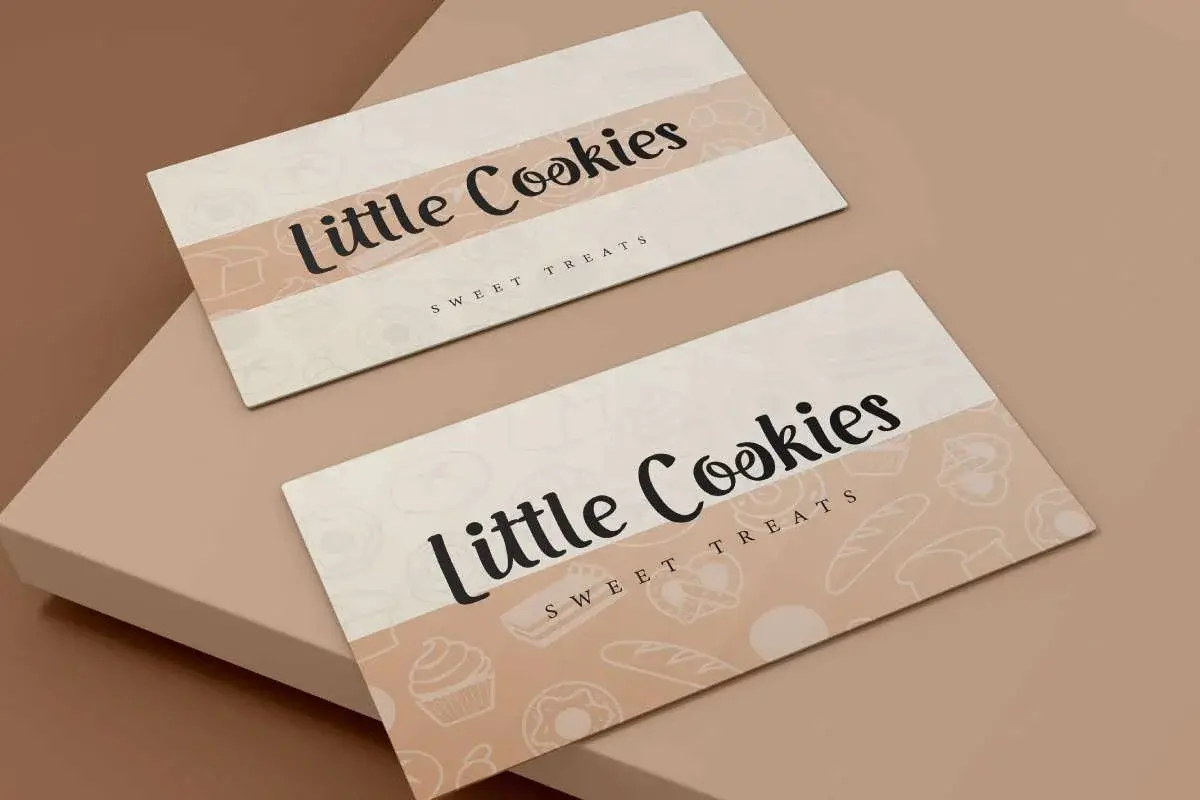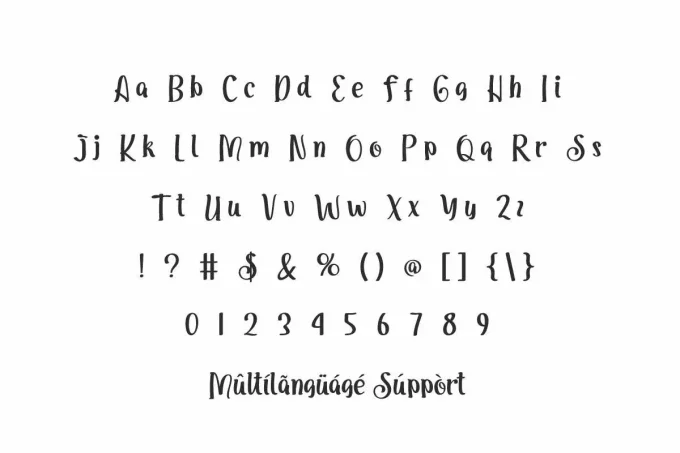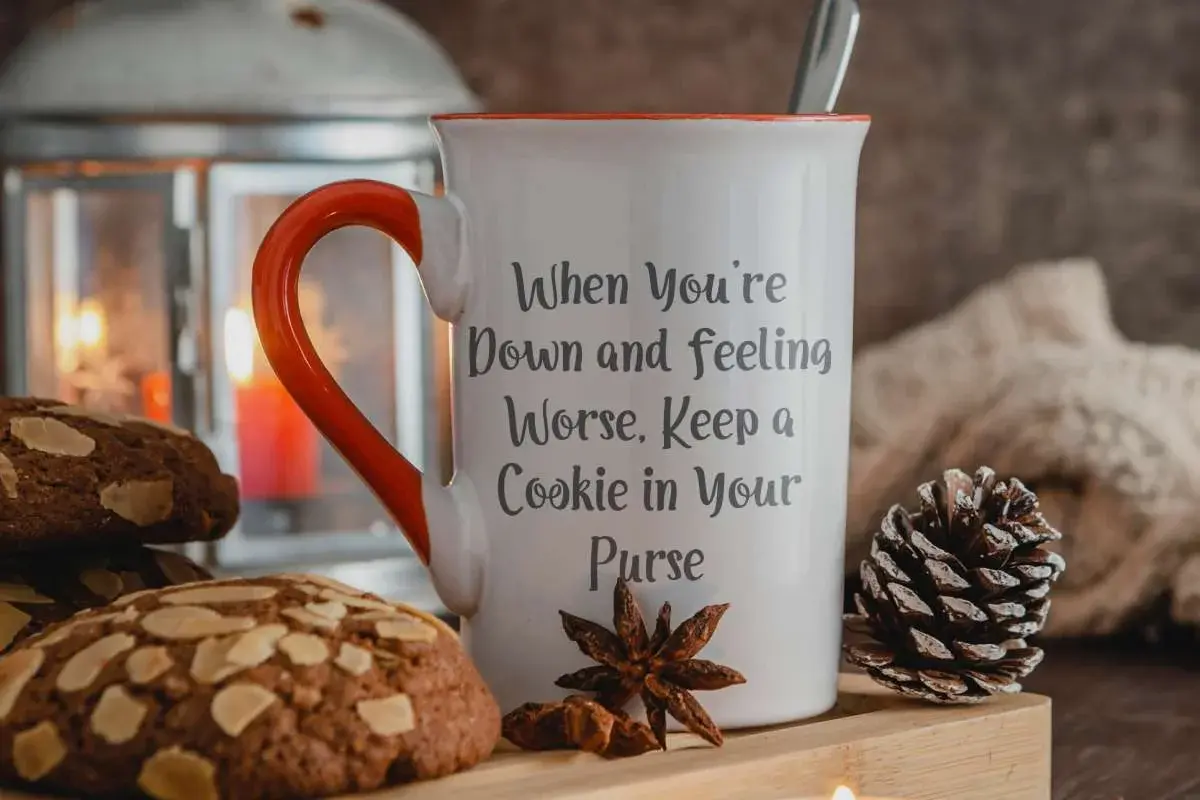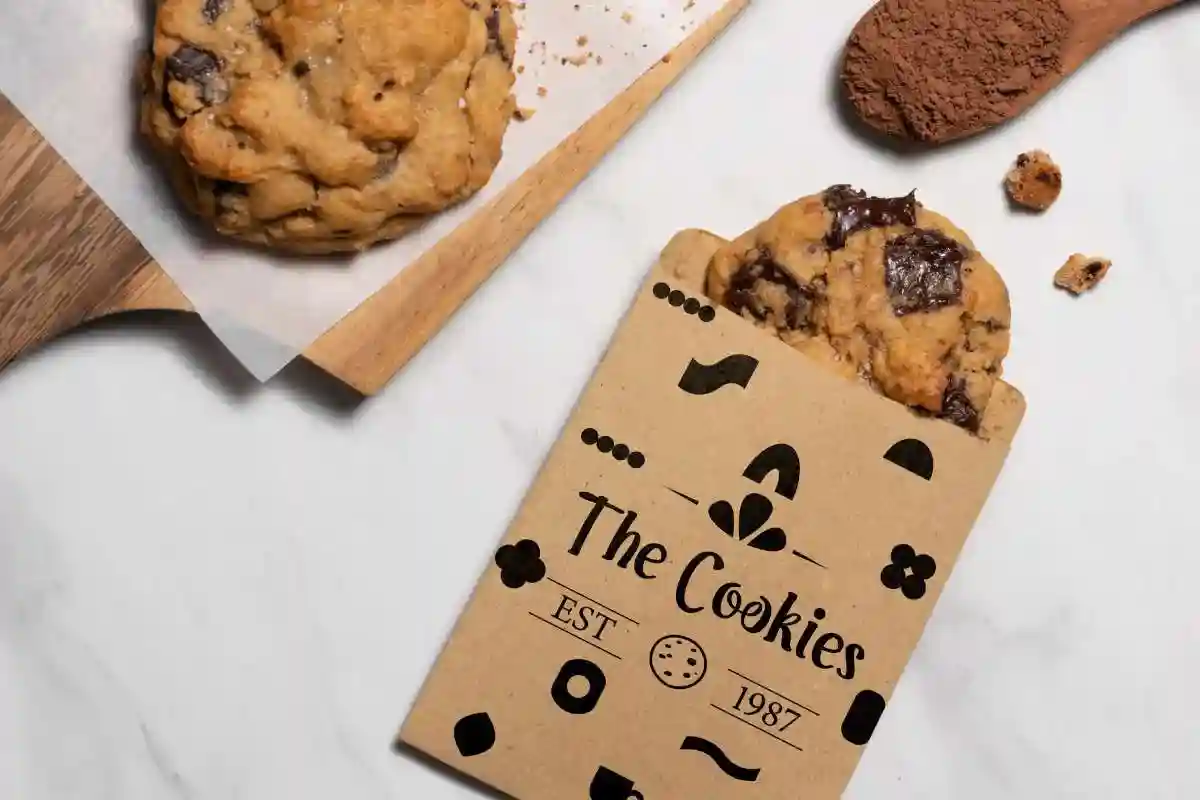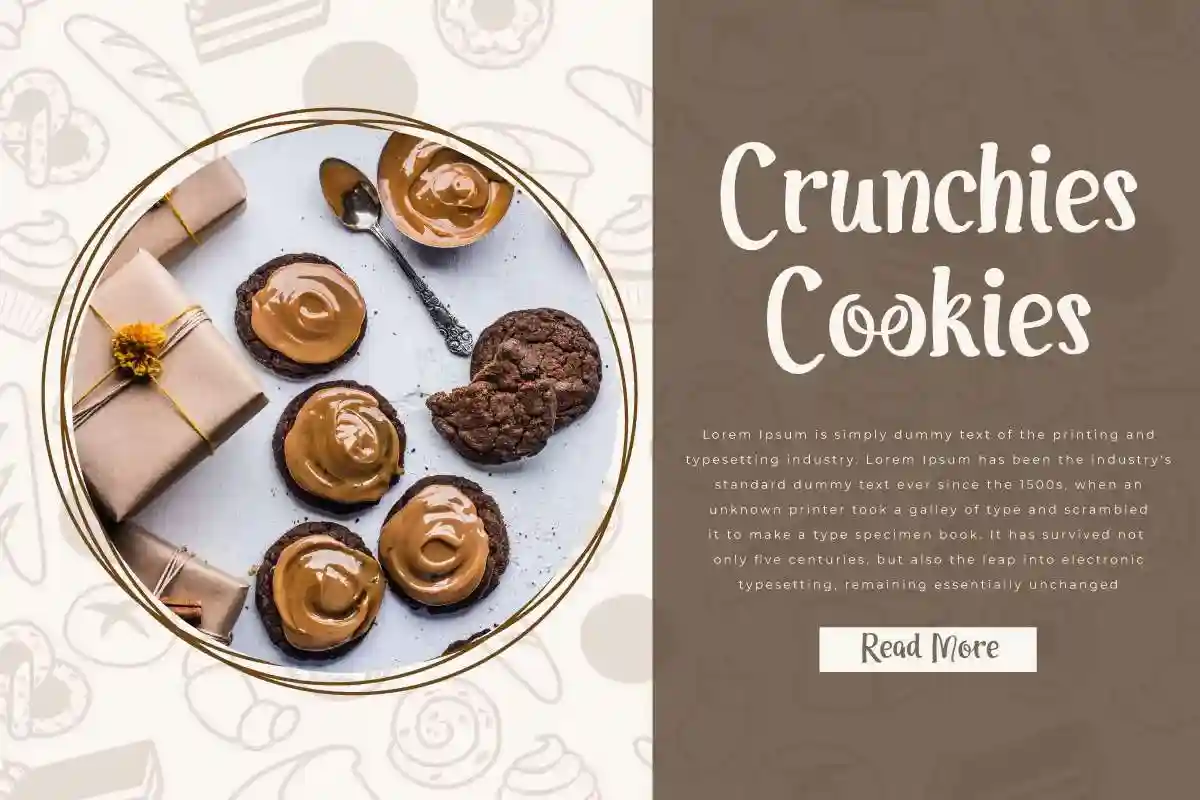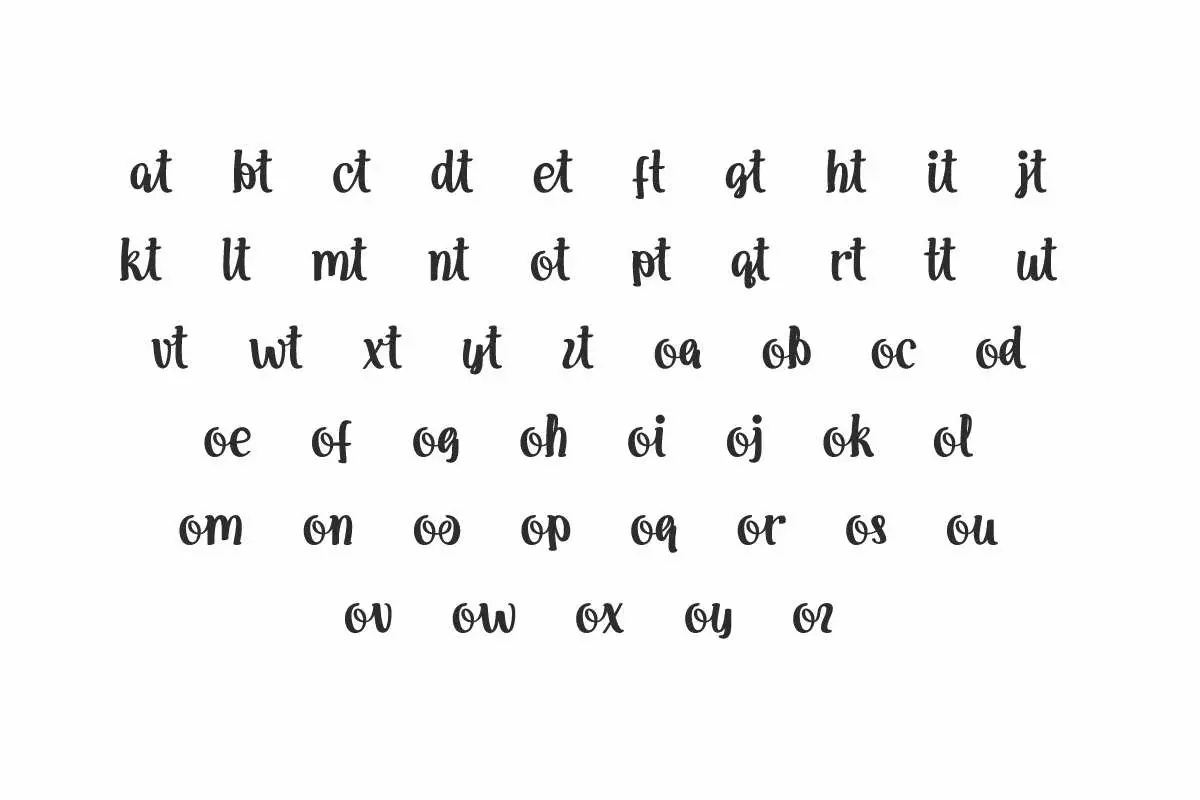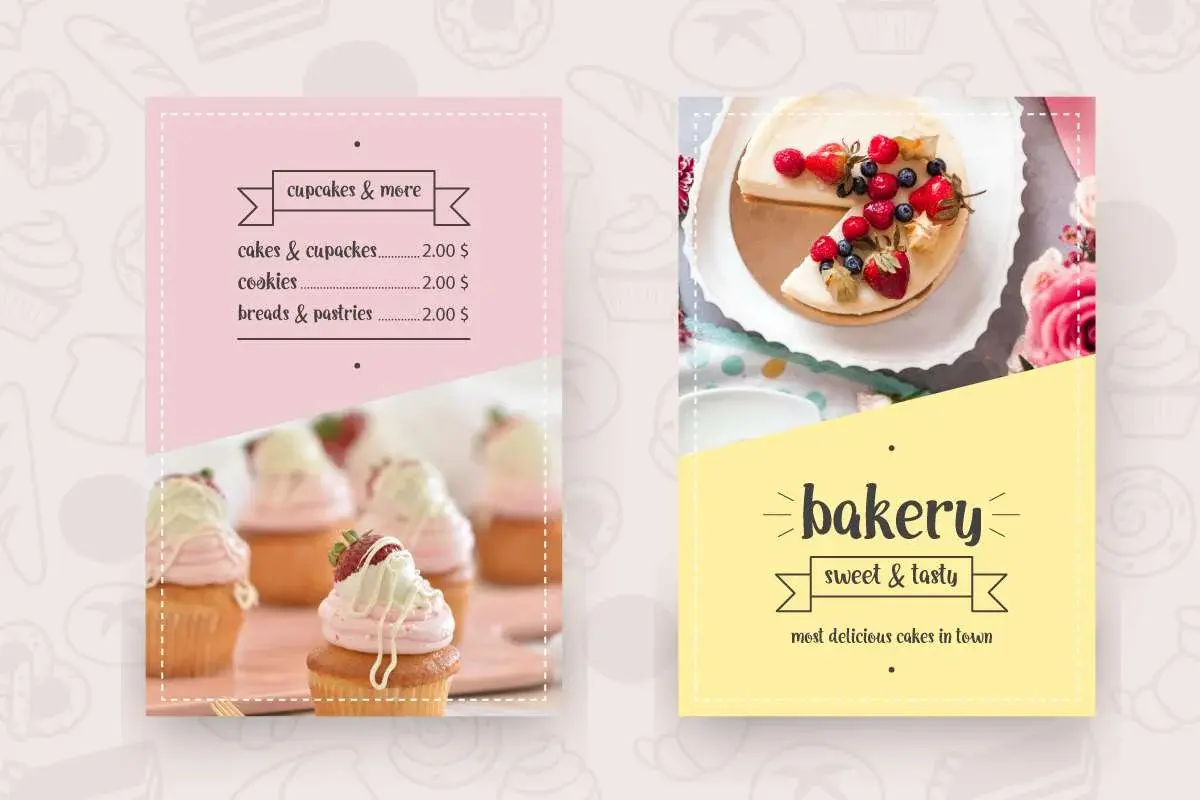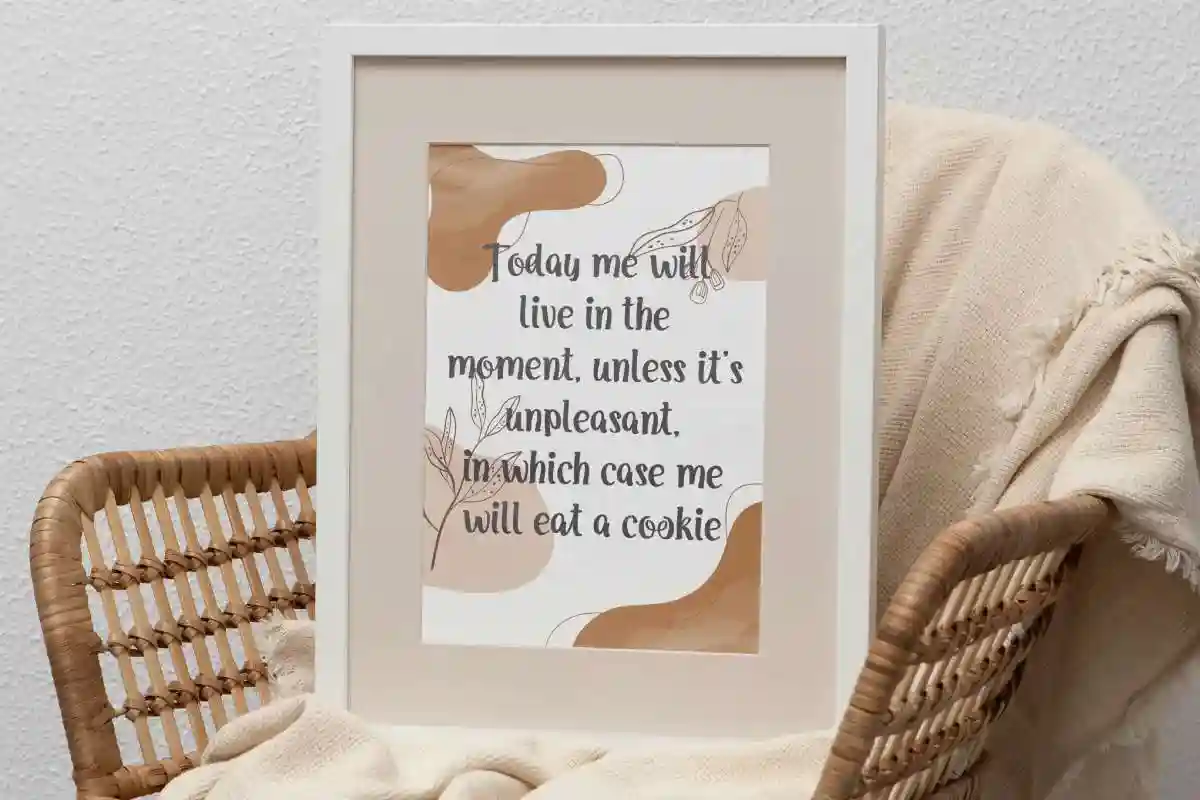
Best Cookies Font is a cute comic typeface from NihStudio that will suitable for brochure, café, pastry, quote art, restaurant, stationery, website, and make your designs more interesting.
Best Cookies Font is a sweet handwriting with comic style, created by NihStudio. This font still looks perfect in split or connected views and is easy to read. This font will suit many industries, such as advertising, bakery and pastry, café, restaurant, publishing, and more!
Best Cookies Font will be great for billboard, brand logo, business card, catalog, label, mockup design, poster, product packaging, quotes, website, and anything that requires a stylish appeal. Carefully crafted to provide a flawless look that adds an aesthetic to every design created.
Best Cookies Font comes with a full set of Uppercase and Lowercase Basic Characters, Number, a large range of Punctuation and Symbol, ligature, and also supports multilingual characters. Ready to use both on Windows machine or Mac with simple installations. It’s tested to work well in the Adobe Apps (Illustrator, Adobe InDesign, Adobe Photoshop) CorelDraw, and others. PUA Encode Characters means you can access all the glyphs and other additional characters easily – Fully accessible without additional design software.